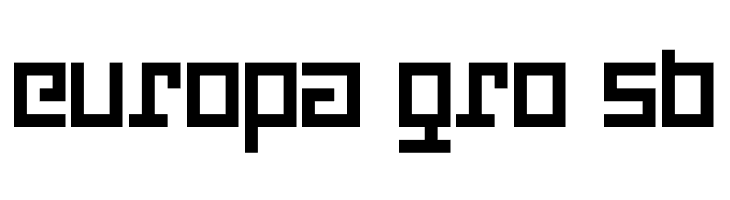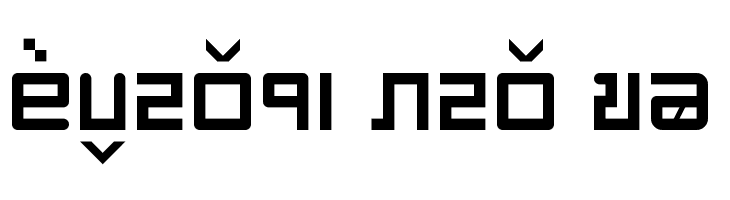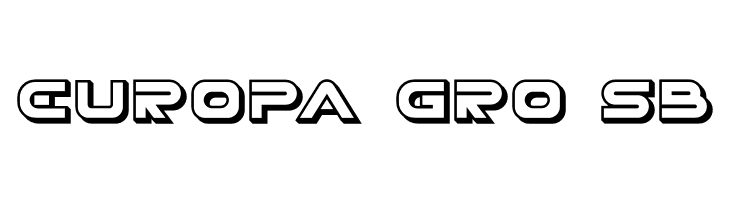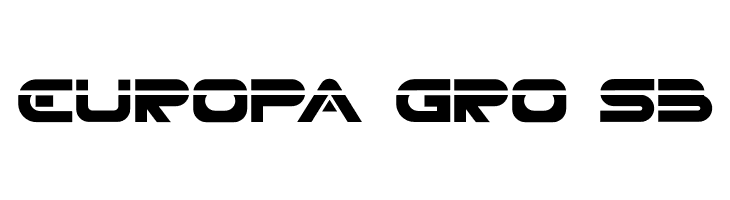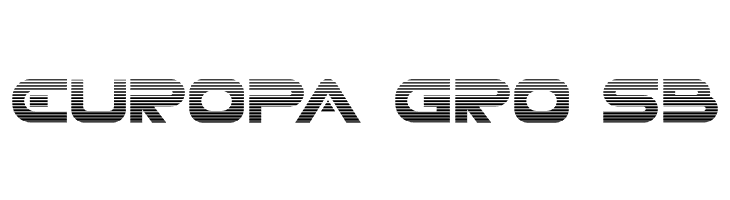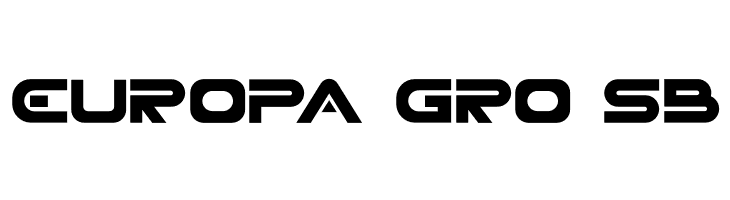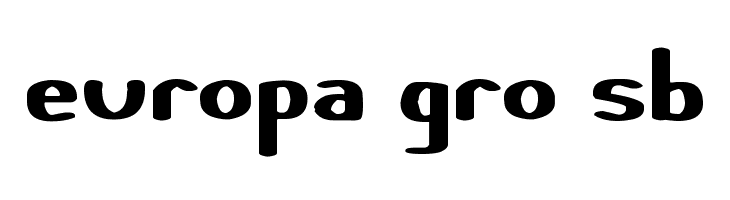
A bold, modern sans-serif font with clean lines and balanced spacing.
A decorative font with intricate, ornamental designs on each character.
A bold, geometric font with a digital, pixel-art style.
( sanskrit logograms )
A bold, geometric font with a monospaced, logogram-inspired design.
A playful, whimsical font with a hand-drawn quality and contrasting strokes.
A bold, 3D geometric font with a futuristic and modern aesthetic.
A futuristic, angular font with sharp edges and geometric shapes.
A modern, futuristic font with a gradient effect created by horizontal lines.
A bold, futuristic font with geometric shapes and sharp angles.